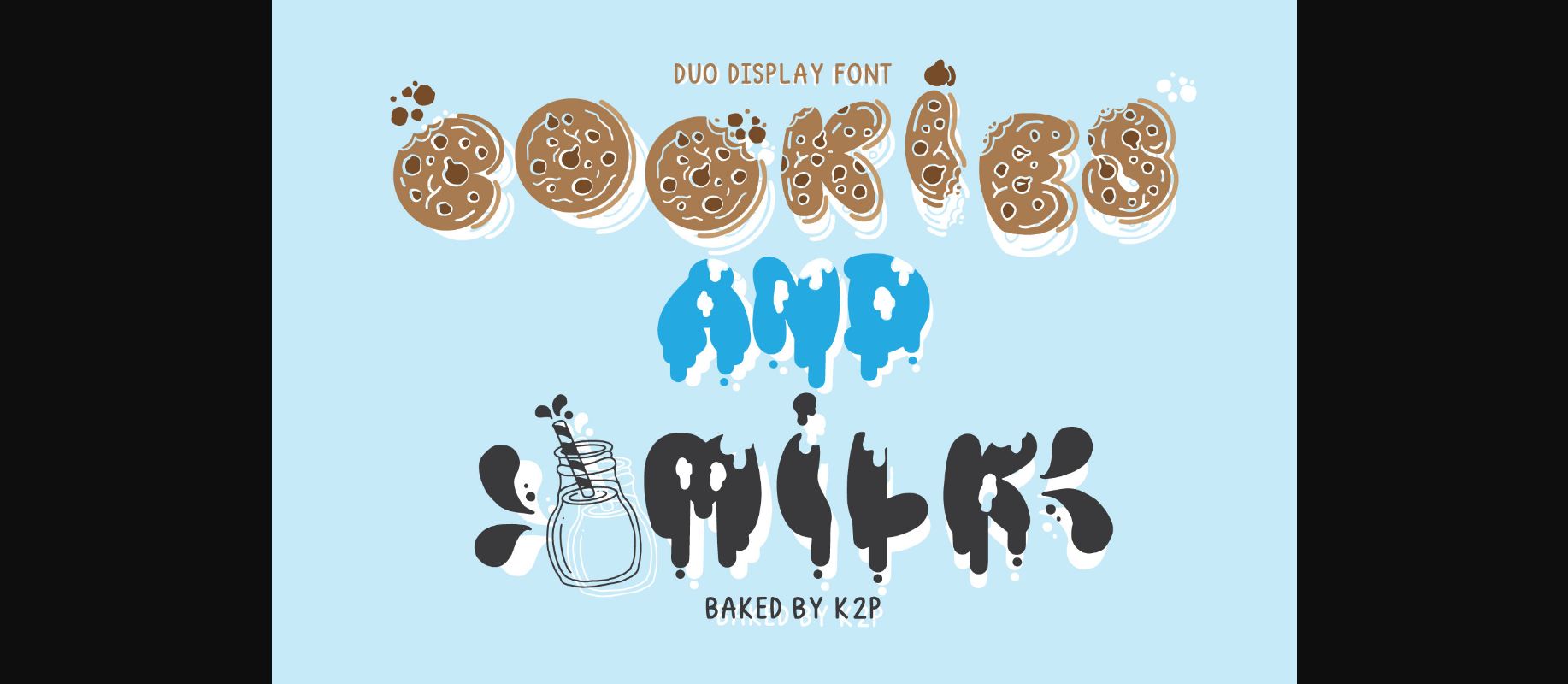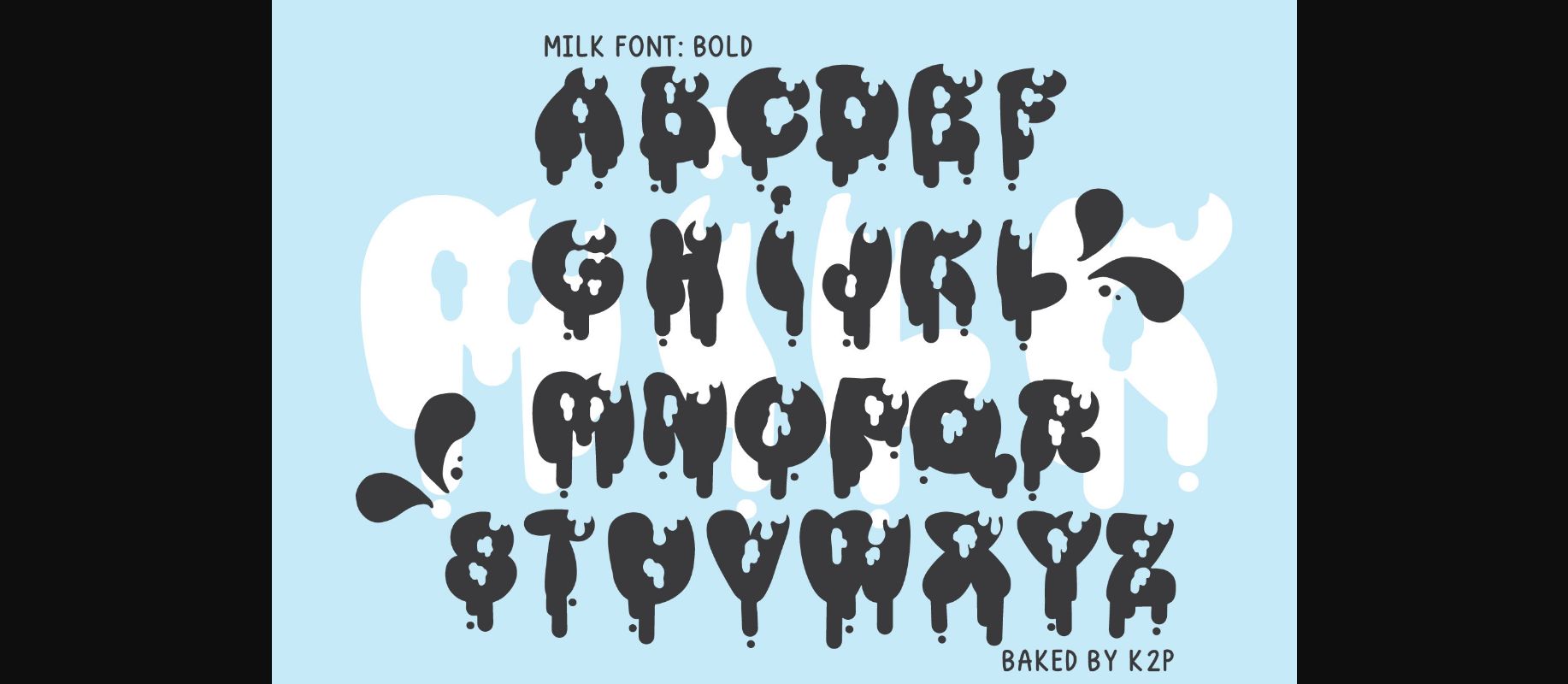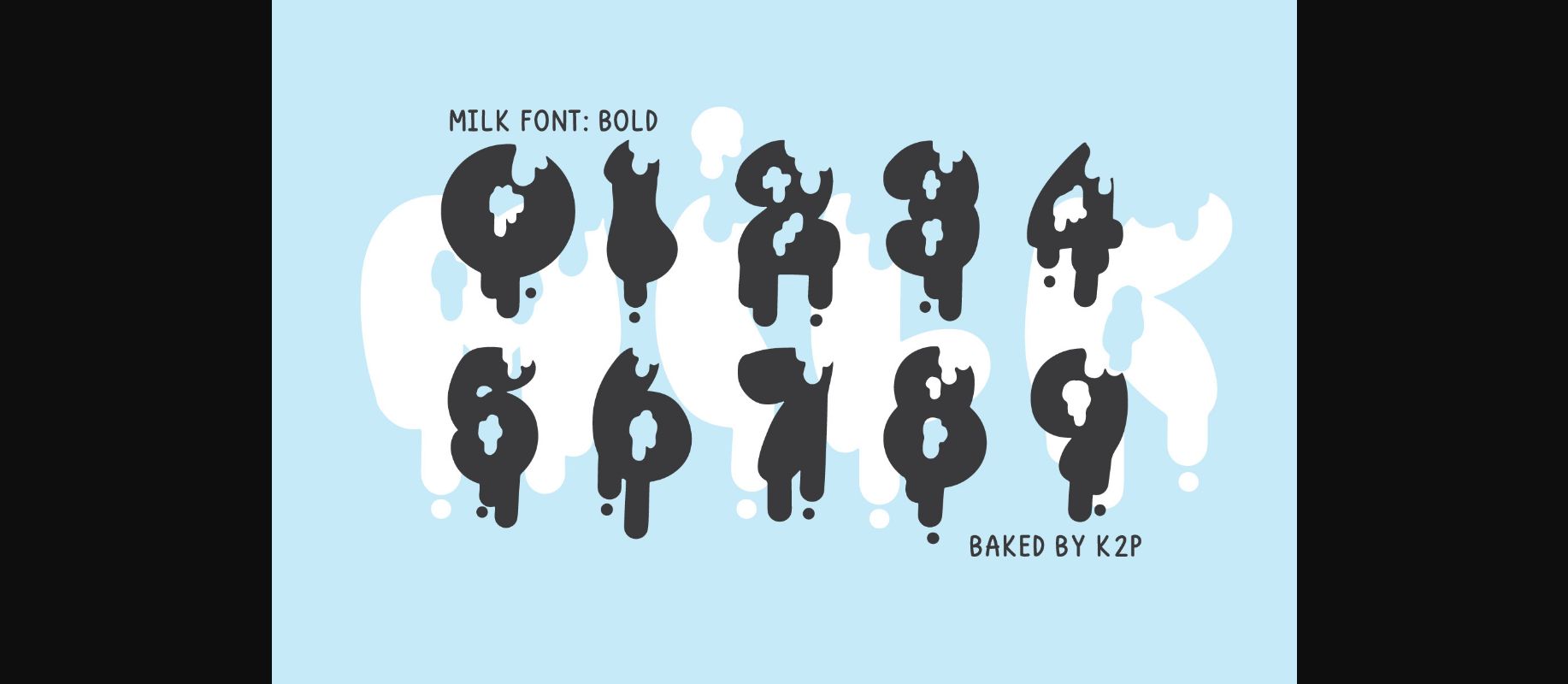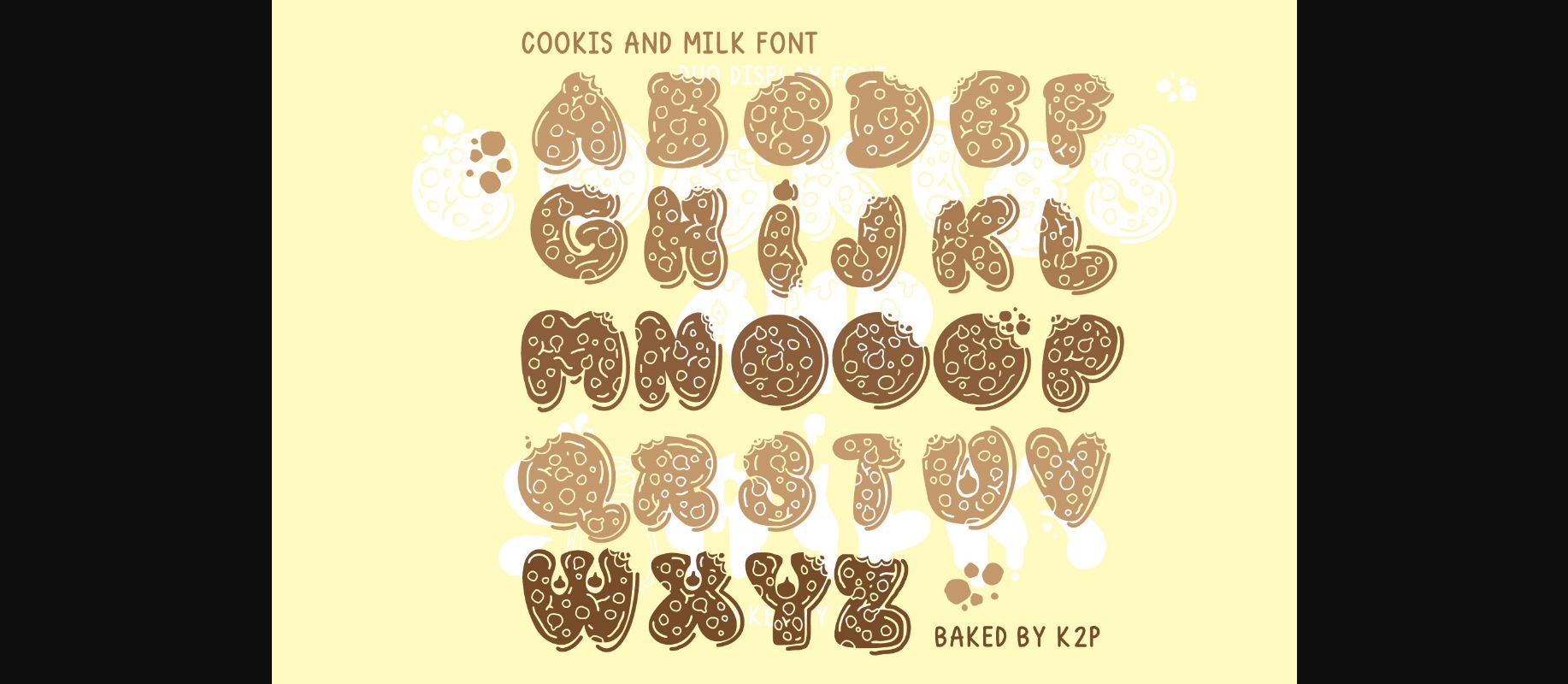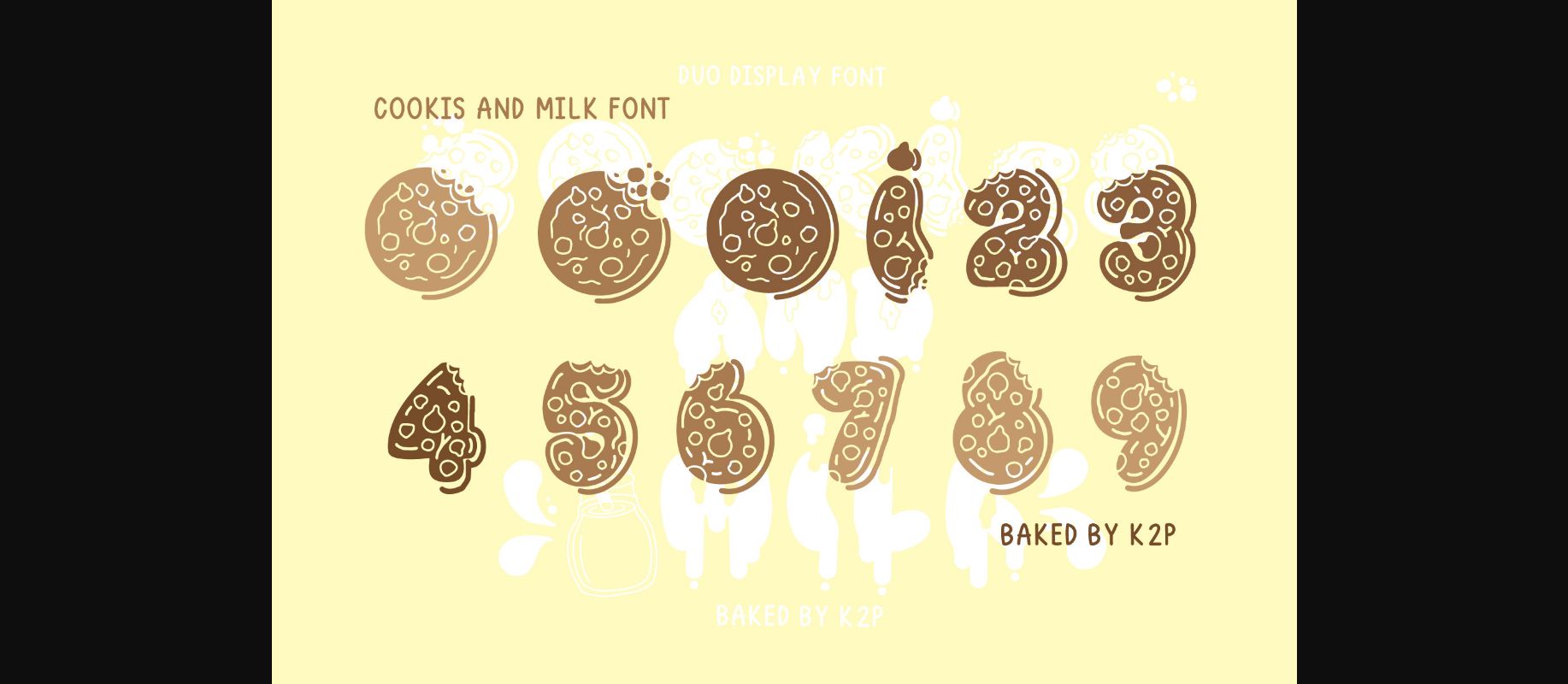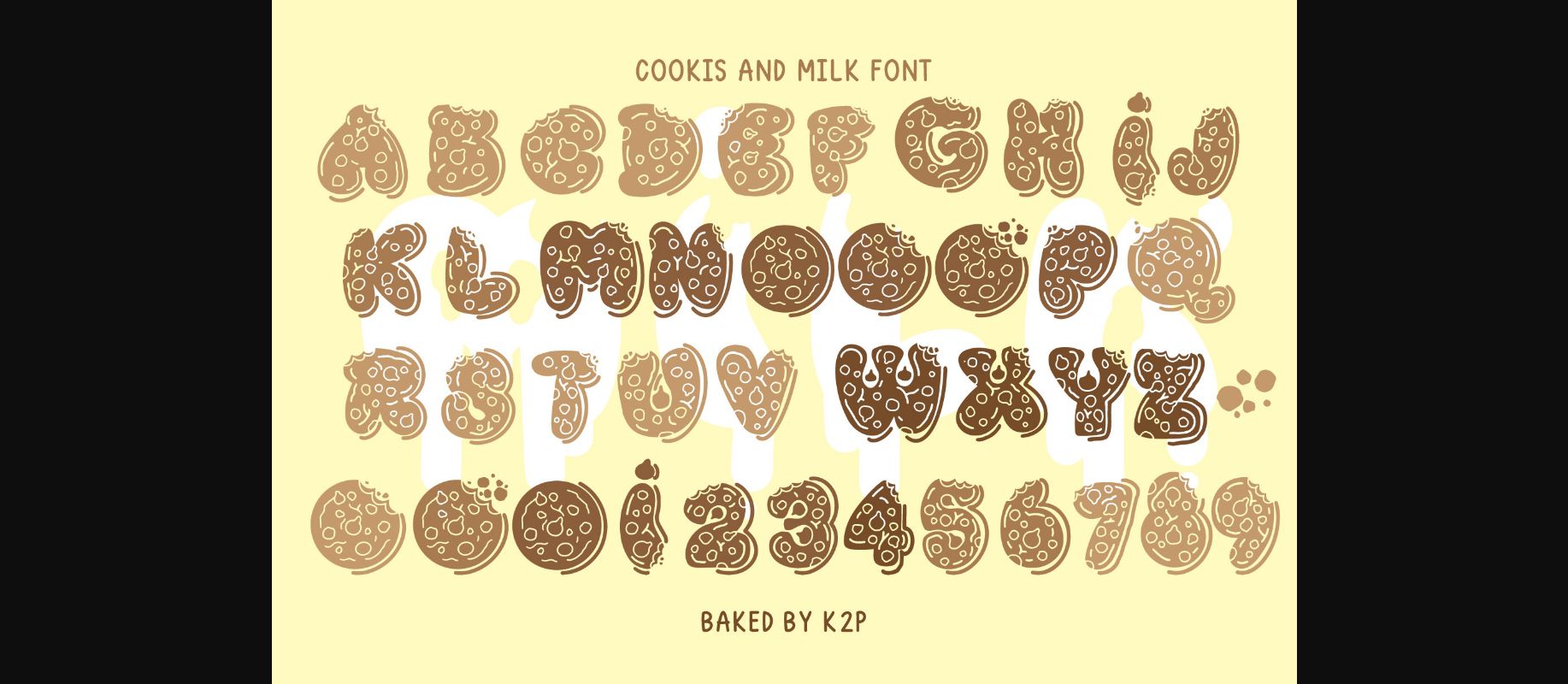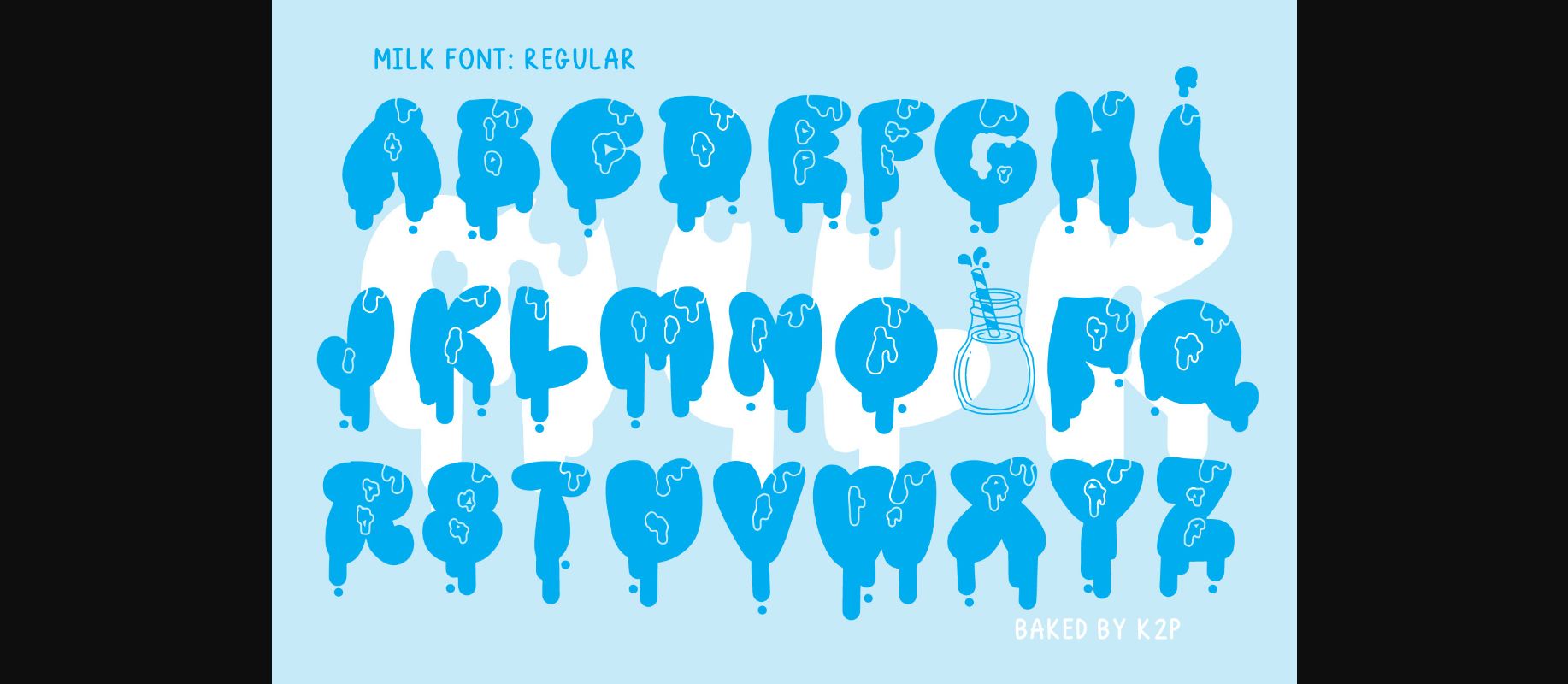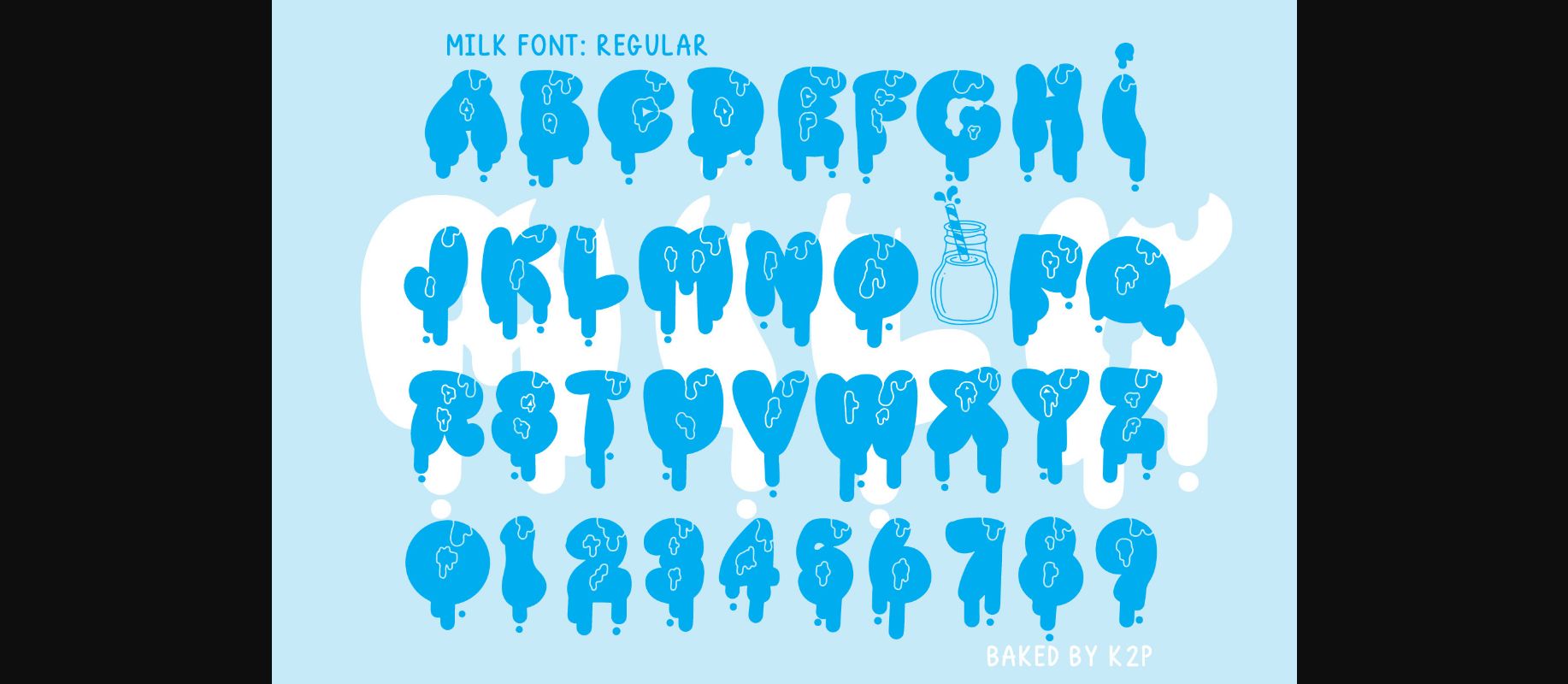
About Cookies and Milk Font
Cookies and Milk is a fun, retro, and unique decorative font. Incredibly versatile, this font is suitable for a wide spectrum of applications.